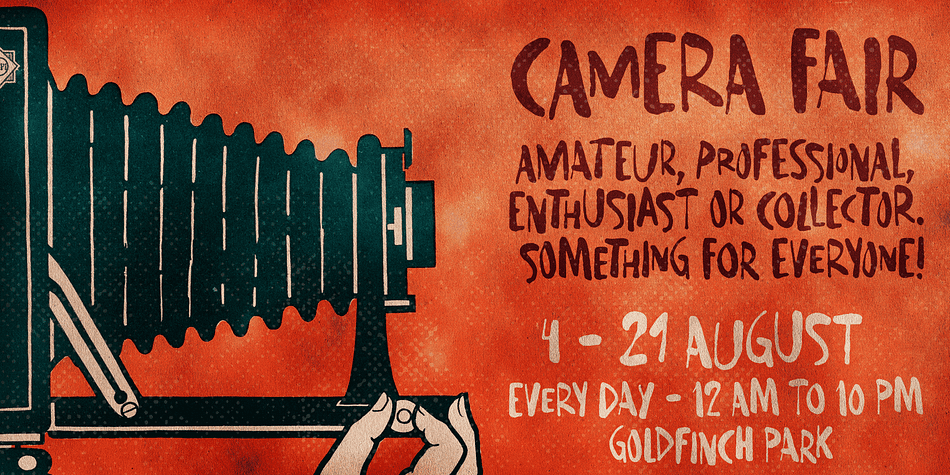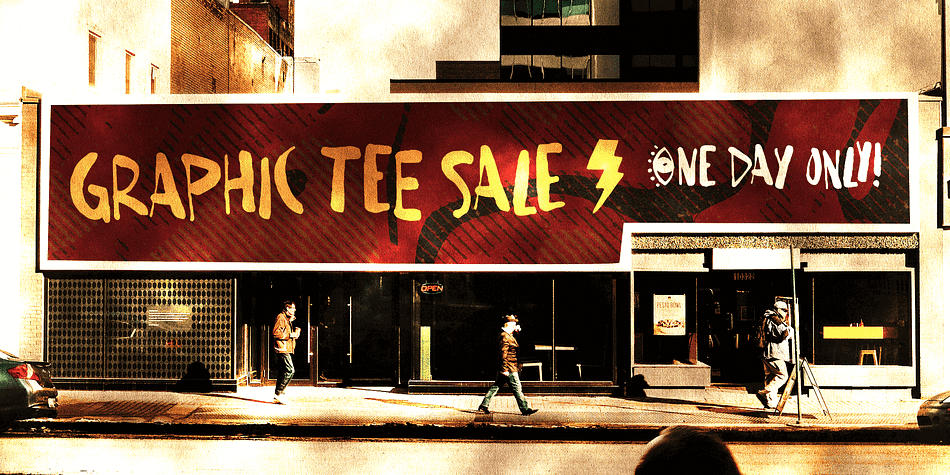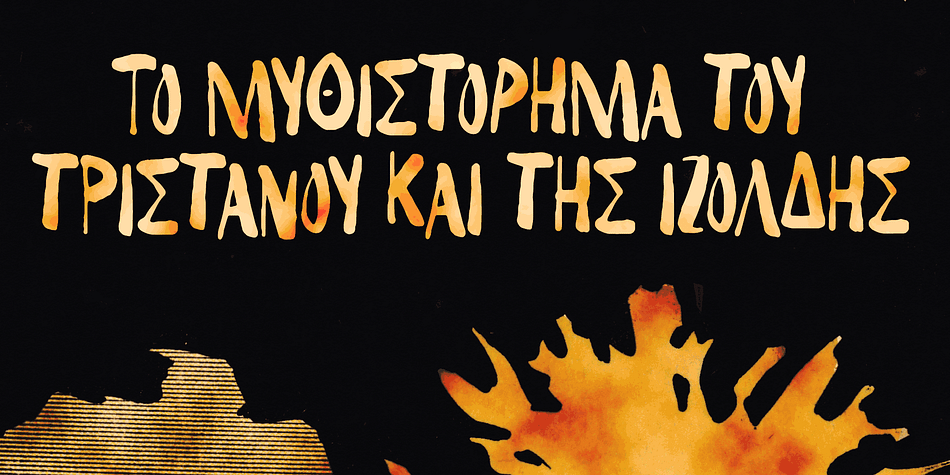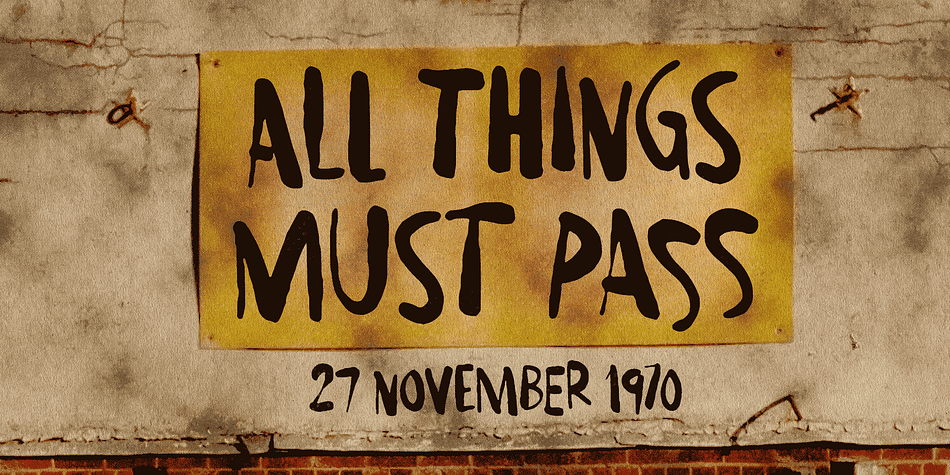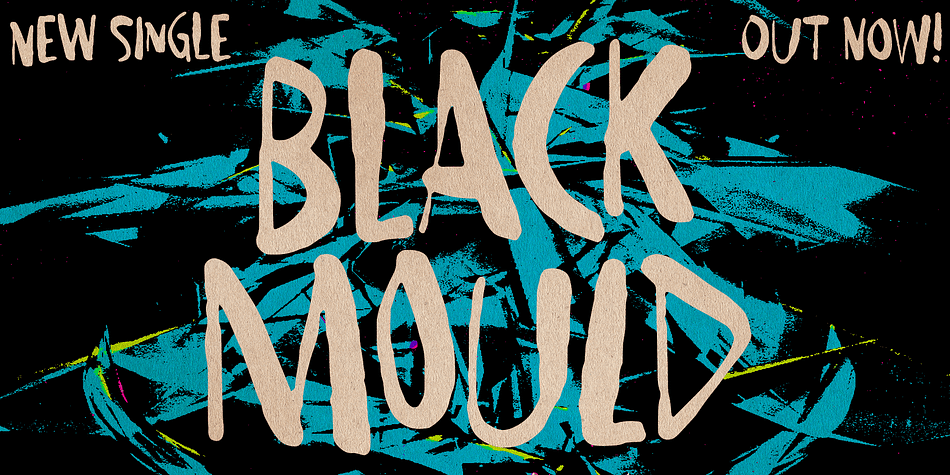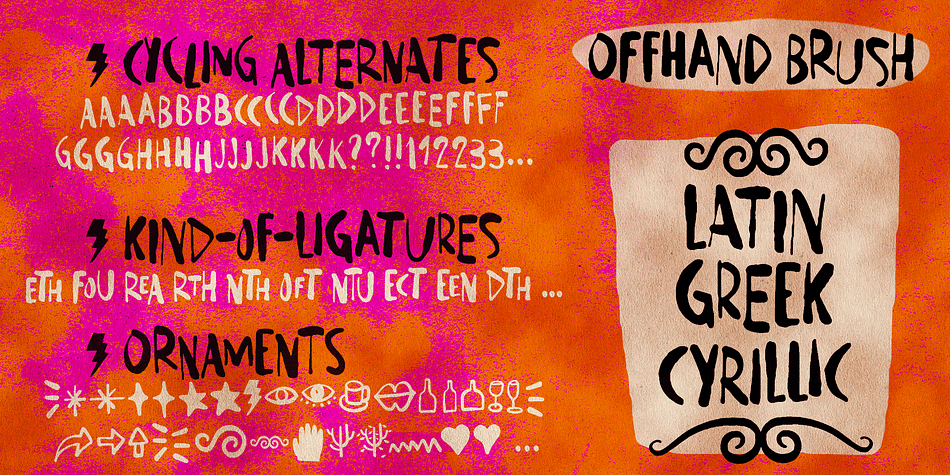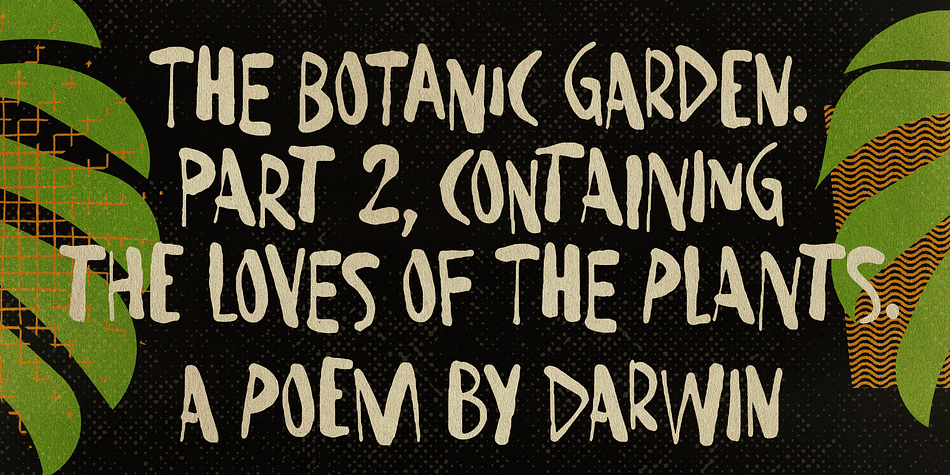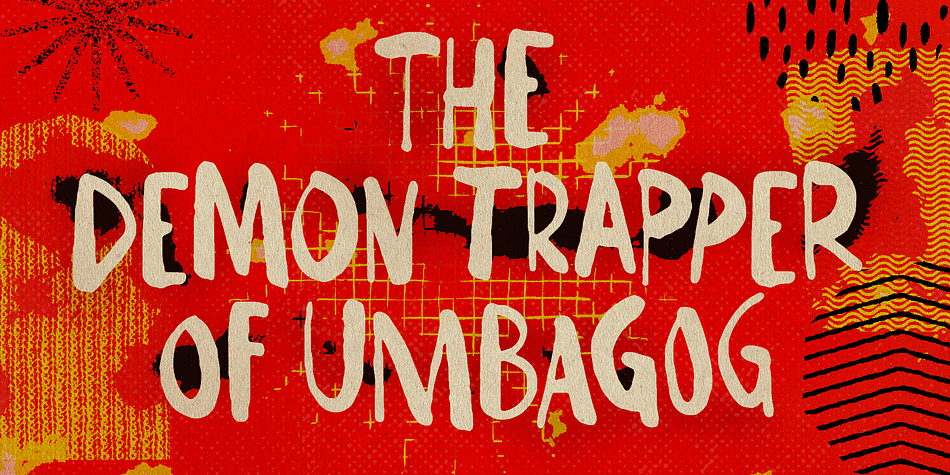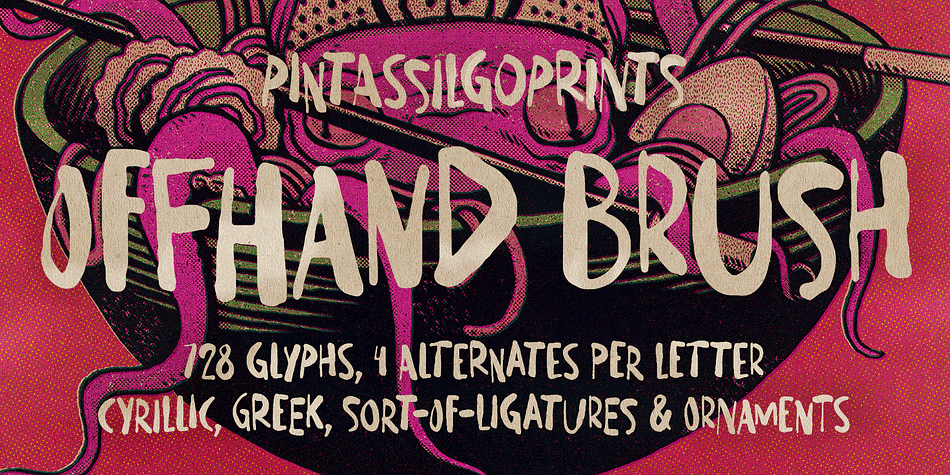
Designed by Ricardo Marcin and Erica Jung, Offhand Brush is a brush display and grunge font family published by PintassilgoPrints.
Offhand Brush is a fast and spontaneous brush font with quite a messy feel, a great option for book covers, packaging projects, album art, web titles, and even small chunks of text. It looks messy, but don’t get it wrong: on the inside, it’s a laborious piece of work, with four alternates for each Latin letter and two for numerals, as well as two options for Cyrillic and Greek letters.
To make things even more uneven, there are still a few different letter designs programmed to pop up when specific combinations of three or four glyphs appear in the text. These are managed by the OpenType ‘Standard Ligatures’ feature, although they are far from standard and are not quite ligatures. And why so? Because this way it will usually be on by default, making the font way more interesting.
Hey, wait! There are some ornaments too. And a couple of contextual kerning pairs, hell yes!
Use it big!